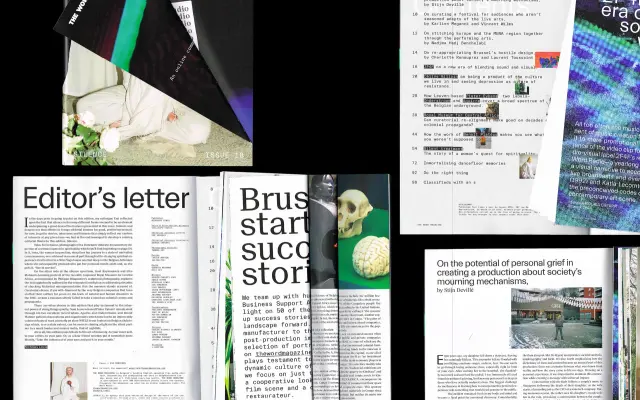
Everett Mono
A fixed-width companion to TWK Everett spanning 22 styles, with mechanical ligatures that stretch across two or three character blocks.
Designed by Nolan Paparelli as an integral part of the Everett project from the start, the mono variant translates Everett's broad proportions and 20-weight range into uniform fixed-width blocks. Each glyph shares the same width across all weights, allowing styles to be mixed freely without disrupting the grid. A distinctive feature is the ligatures, which can occupy two or three blocks, lending the face a mechanical, almost typeset-machine quality.
A fixed-width companion to a grotesque sans, Everett Mono uses uniform character blocks and mechanical ligatures that span two or three blocks, placing it firmly in the monospaced category with grotesque proportions.